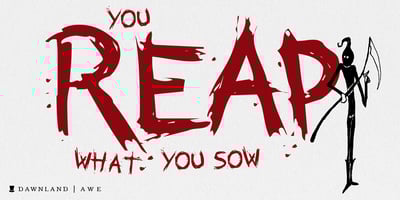
Awe Font Family was designed by Daniel Viberg and published by Dawnland. Awe contains 1 styles and family package options. An awe inspiring nightmarish font for use wherever you need to add unease or fear to your artwork. The main focus and usage of AweX are headlines, posters for event graphics and music/media/game packaging. AweX was revised 2012 and now hold a full character set of basic english/latin letters and west european diacritics!